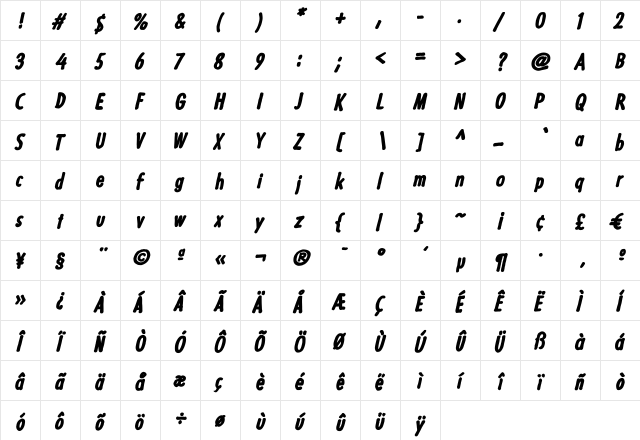
Futuramano Condensed XeBold Italic Font Preview
Rendered live in your browserFuturamano Condensed XeBold Italic Font Details
| Foundry | Gert Wiescher, Wiescher-Design, Munich, Germany,https://www.wiescher-design.de |
Design Context for Futuramano Condensed XeBold Typeface
Futuramano Condensed XeBold has a distinctly futuristic character, with geometric precision and clean angles that feel at home in technology, gaming, and sci-fi contexts. The dynamic lean of this cut emphasises speed and emphasis in any layout. Its bold stroke weight gives it real presence on the page. The condensed width makes it efficient for tight spaces without sacrificing legibility.
Pro Tip: Use Futuramano Condensed XeBold in combination with a neutral sans for body text. Let it define the brand voice in headlines while keeping reading comfortable elsewhere.